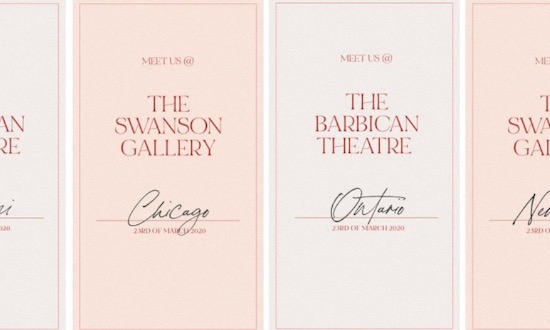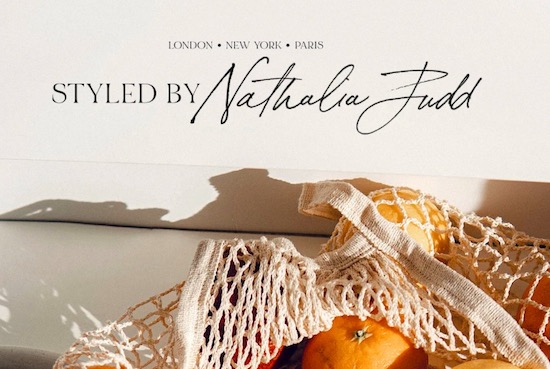
Bon Vivant Collection Font includes Bon Vivant Script Font and Bon Vivant Serif Font that was designed and released by Nicky Laatz. Bon Vivant Script Font is available as both a Regular Opentype font and a bitmap OpenType SVG font. Along with lowercase & uppercase letters, all punctuation, and numerals. Bon Vivant Serif Font includes 2 weights, bold & regular. It has also lowercase & uppercase letters, all punctuation, and numerals.
Bon Vivant Collection Font has a combination between the two popular fonts gives a luxury and versatile touch to every design, like branding design, wedding design, quote, logo, social media posts, product design, poster, advertisement design, and more.
Bon Vivant Collection Serif Script Font